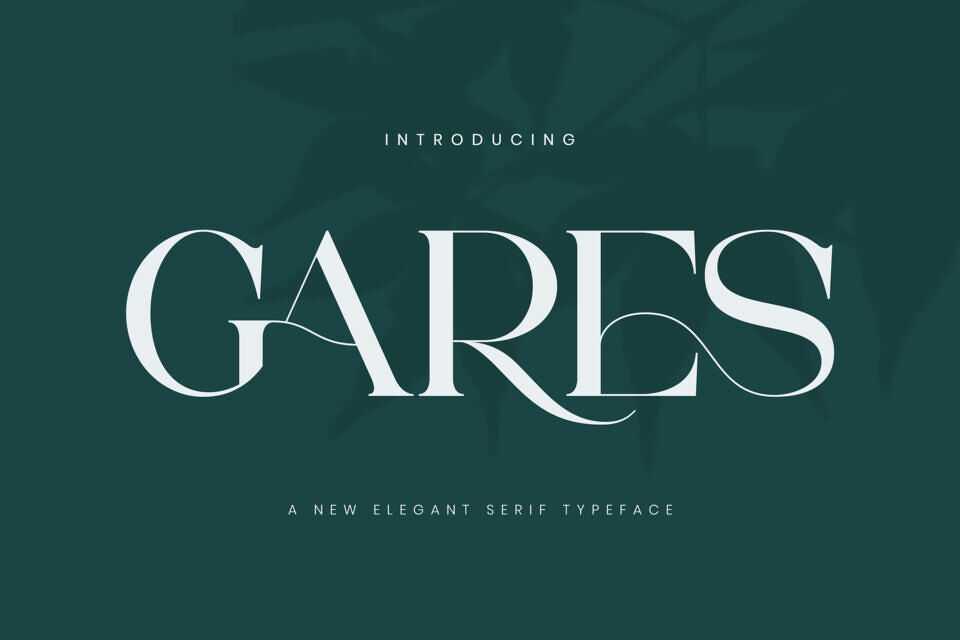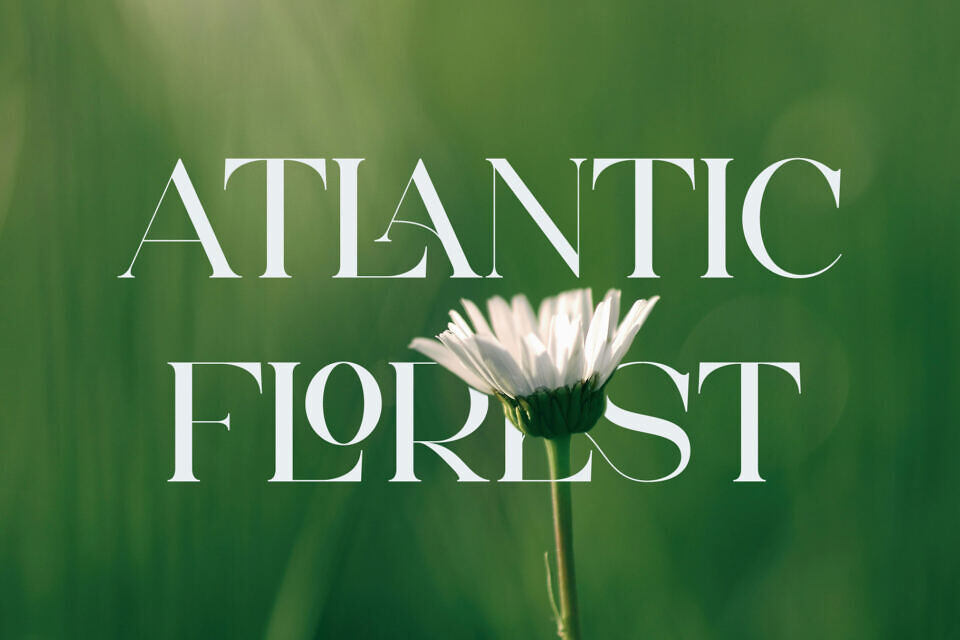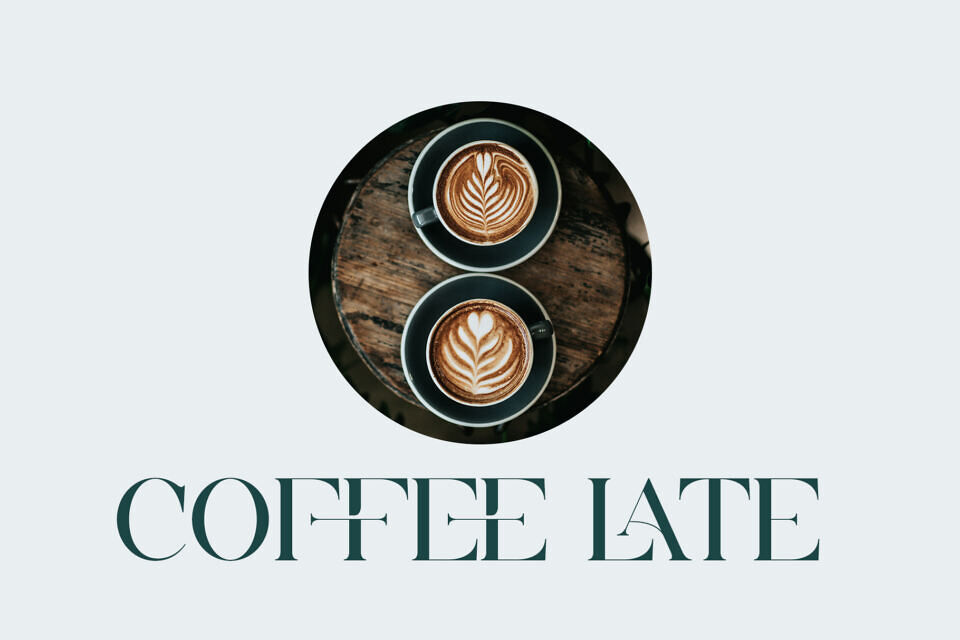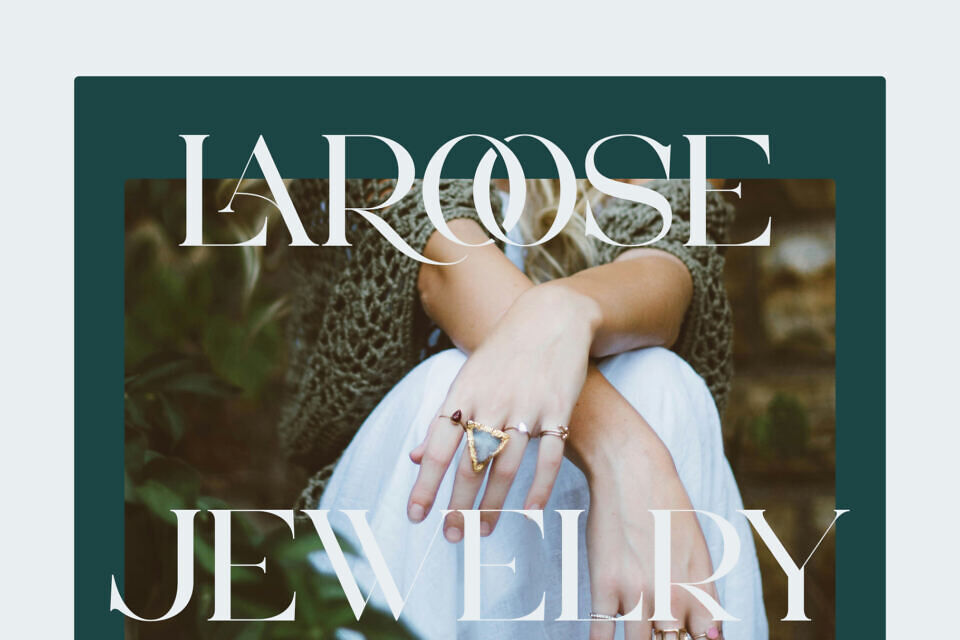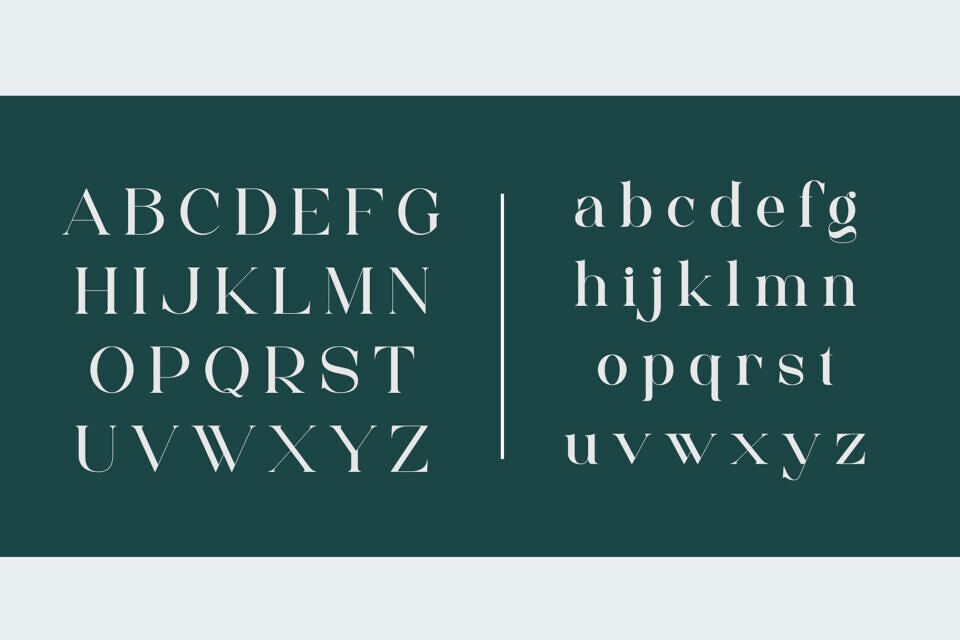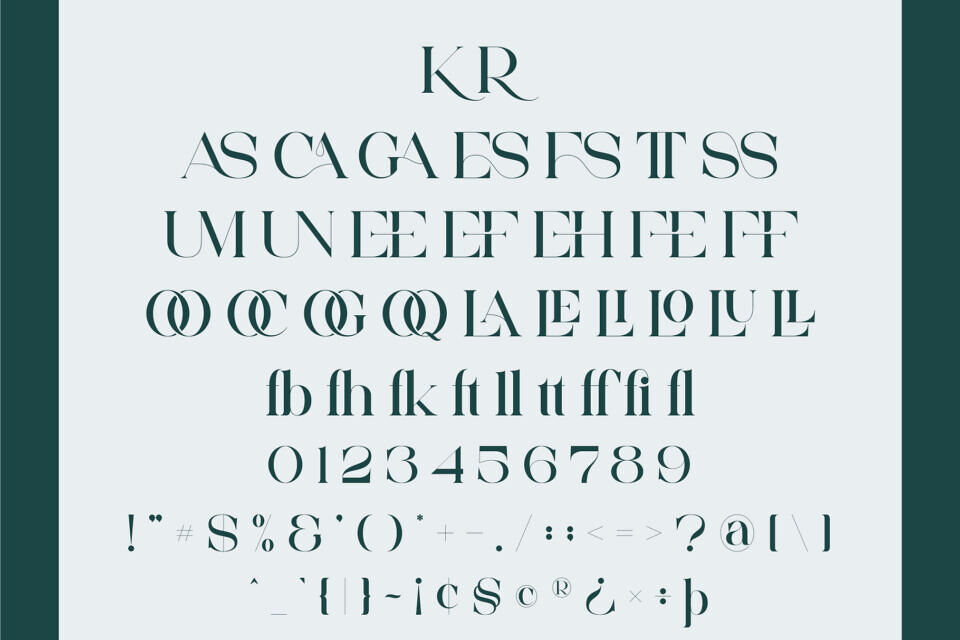
Gares Font
Gares is an elegant serif typeface with a stylish touch, influenced by a renowned minimalist design. Its ligatures make it perfect for creating visually appealing templates, brochures, videos, and advertisements, as well as logos and branding materials.